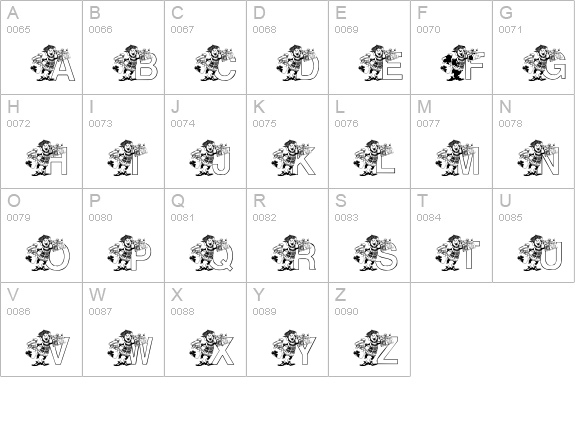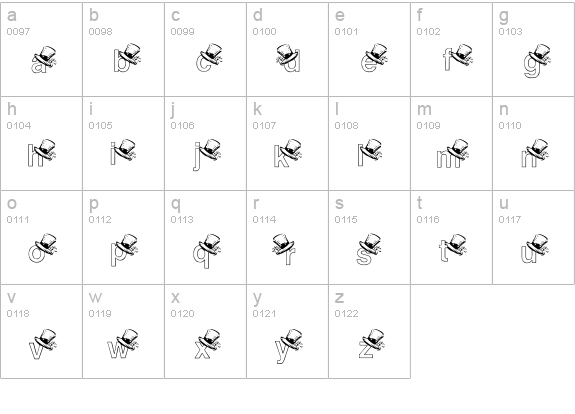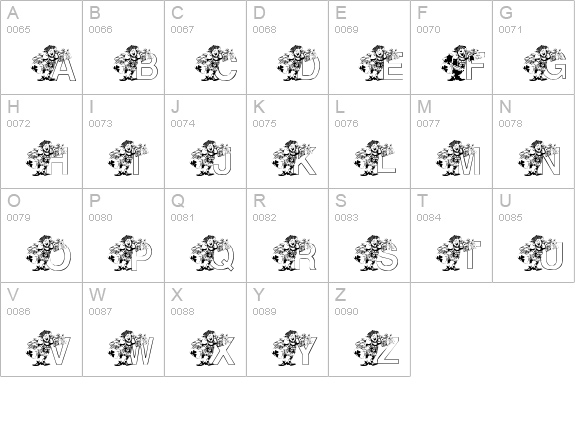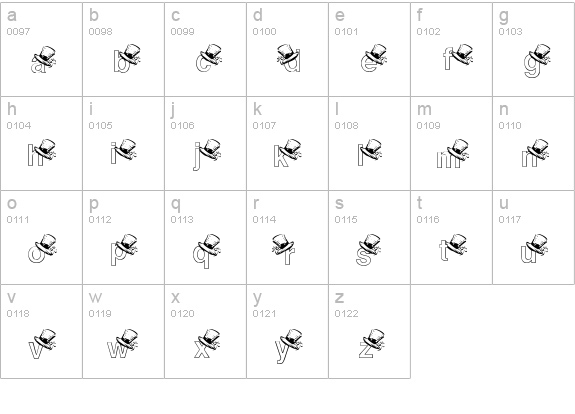
Introducing KGSTPAT2, a captivating and versatile font that is sure to make a statement with its unique and modern design. This font exudes a sense of elegance and sophistication, perfect for any project that demands attention and creativity. With its clean lines and stylish curves, KGSTPAT2 is incredibly readable and easy on the eyes. Its carefully crafted letterforms ensure legibility, making it suitable for a wide range of applications, from branding and advertising to web design and typography. One of the most remarkable features of KGSTPAT2 is that it is absolutely free. Yes, you read that right! This font is freely available to download at FontsMarket.com, the go-to destination for font enthusiasts and designers alike. With just a few clicks, you can enhance your design projects with this incredible typeface, without having to spend a penny. Whether you're creating a logo, designing a website, or working on a print project, KGSTPAT2 is your perfect companion. Its versatility allows it to adapt to various styles and themes, adding a touch of class and sophistication to any design. So why wait? Get your hands on KGSTPAT2 today and elevate your design projects to a whole new level. Download it for free at FontsMarket.com and let your creativity soar.